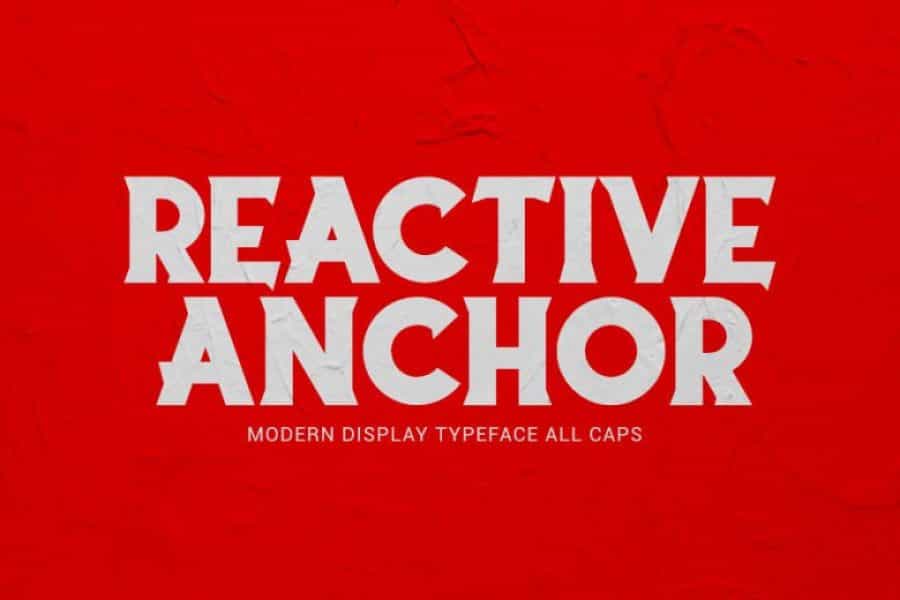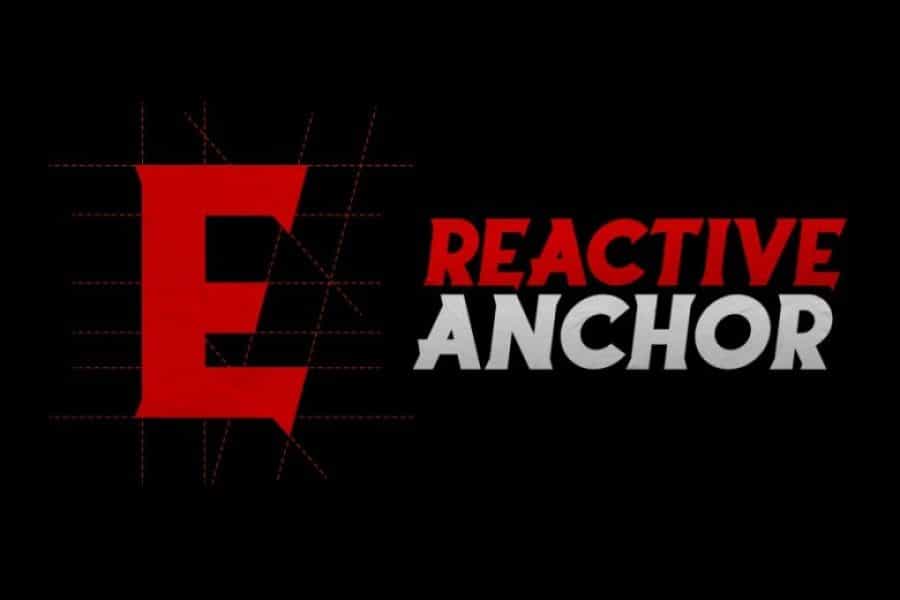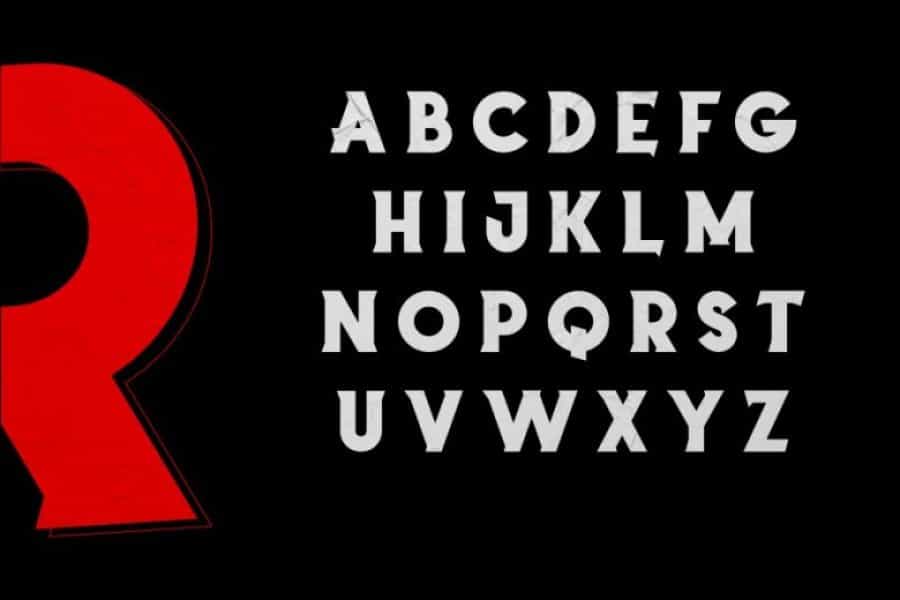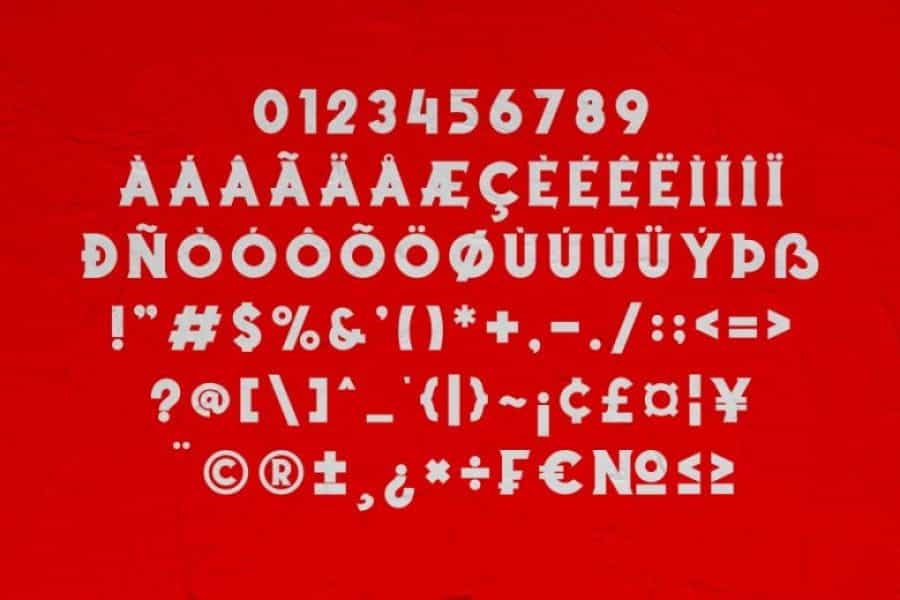
Reactive Anchor Serif Display Typeface
Reactive Anchor is a display condensed serif typeface with strong characters perfect for branding or any project you want to push. Ideal for both the contemporary and the traditional, it has the following features: irregular continuity and a high focus on people in all their manifestations.